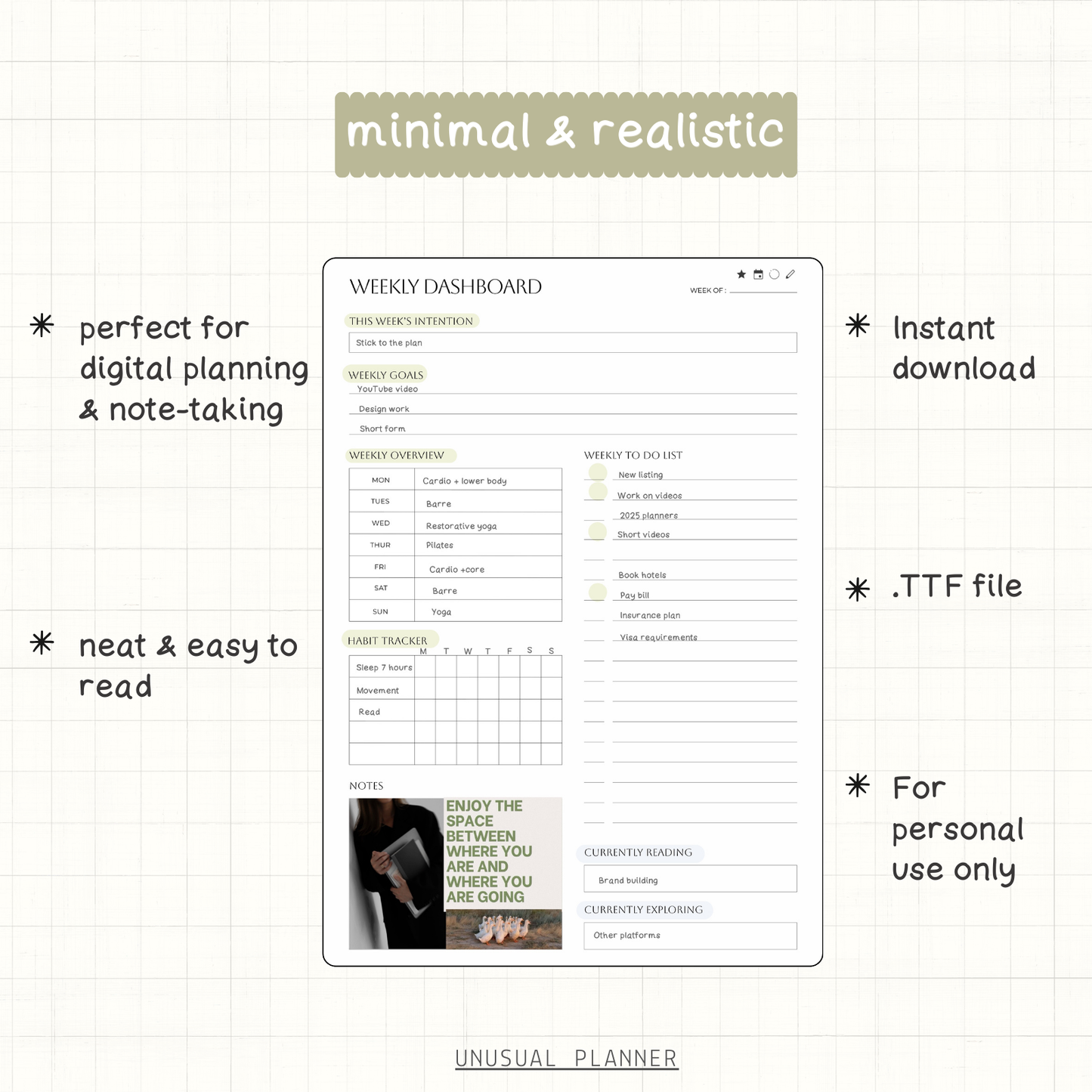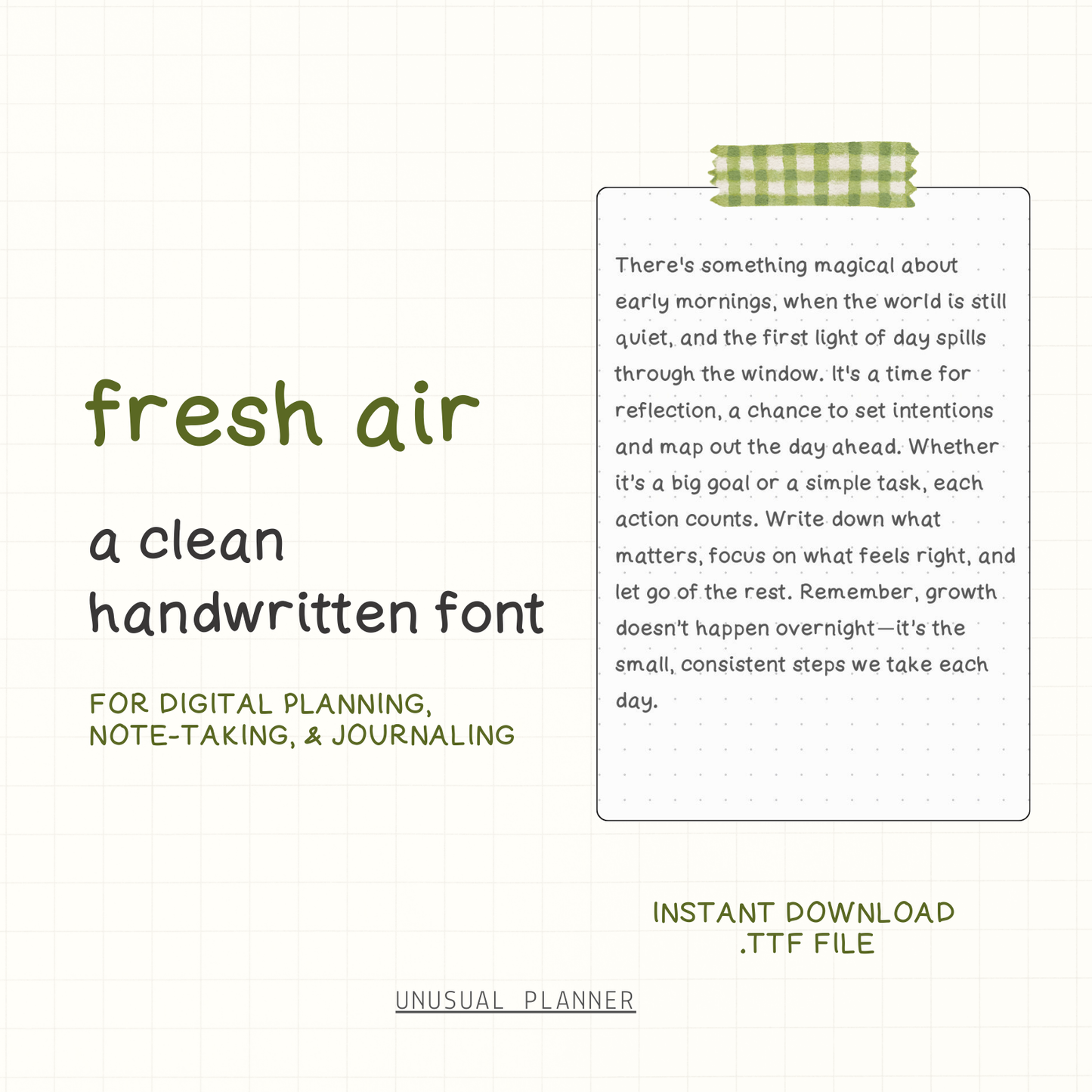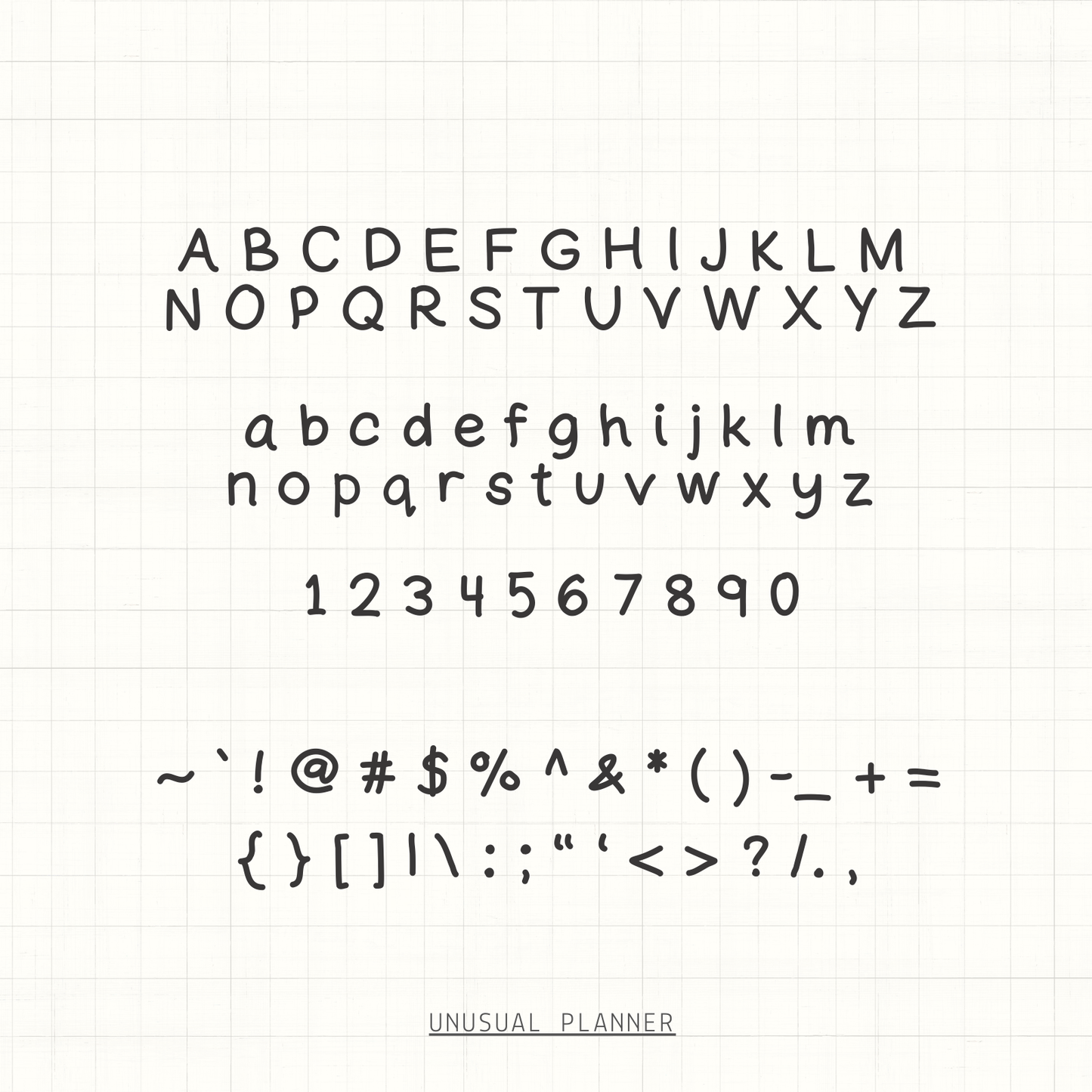
Fresh Air Handwritten Font
Meet Fresh Air, a clean and minimalist handwritten font that brings a natural, personal touch to your digital notes, planners, and journals. Perfect for adding that neat, handwritten feel to your iPad—making it easy to read your notes, organize your plans, and give your pages a polished look. Capture your thoughts in your digital journal or create a cozy vibe for your social media posts. Fresh Air font is for personal use only.
Perfect for digital planning and note-taking. Works with most design apps and devices, with a handwritten style that brings a personal, polished look to your pages.